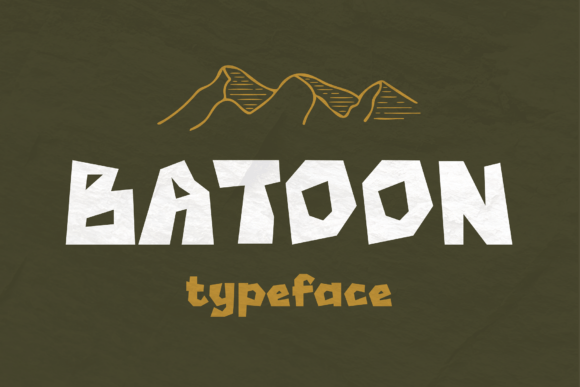
Batoon: A Sharp Sans Serif for Bold Editorial Design
I was recently tasked with redesigning the header for a lifestyle blog that focuses on outdoor adventures and rugged travel narratives. The existing layout felt too soft, lacking the visual punch needed to convey the craggy reality of mountain trails. As I scrolled through my library of Fonts, searching for a typeface that could bridge the gap between modern cleanliness and raw texture, Batoon immediately caught my eye. This handmade, sharp Sans Serif captures the rugged beauty of the Rocky Mountains, offering a distinct personality that standard geometric fonts simply cannot match. Its jagged edges and bold lines evoke the craggy peaks and rocky trails of the mountain range, making it an ideal candidate for projects that need to feel grounded yet contemporary.
Using Batoon for Magazine Covers and Digital Headers
When selecting Fonts for a digital magazine cover or a high-impact blog header, the primary goal is to stop the scroll while maintaining readability. Batoon excels in this arena because its unique character acts as a visual hook without sacrificing the legibility expected of a Sans Serif. In my test layout for the adventure blog, I used Batoon for the main issue title, pairing it with large, high-resolution photography of slate-grey cliffs. The font's inherent roughness complemented the texture of the stone in the image, creating a cohesive editorial mood that felt intentional and curated. Unlike sterile corporate fonts, Batoon brings a sense of place and atmosphere to the design, instantly communicating that the content within is about exploration and resilience.
For web designers and publishers, this makes Batoon a powerful tool for establishing brand identity. Whether you are building a newsletter graphic or a landing page for a coaching workbook, the font's bold presence ensures that your headlines command attention. It works particularly well when you need to convey strength and authenticity, avoiding the overly polished look that can sometimes alienate readers seeking genuine connection.
Pairing Batoon with Readable Body Text for Long-Form Content
One of the most critical aspects of editorial design is understanding where a display font ends and body copy begins. While Batoon is stunning for titles, its jagged nature means it is not suitable for dense paragraphs or small captions. To create a balanced reading experience, I paired Batoon with a classic, highly readable serif font for the article body. This combination leverages the best of both worlds: the expressive, handmade quality of the Sans Serif headline draws the reader in, while the traditional serif ensures comfort during long-form reading on screens or in PDF exports. This technique is essential for ebook creators and newsletter writers who want their publications to feel premium without exhausting the reader's eyes.
If a serif feels too traditional for your specific project, another effective strategy is to pair Batoon with a clean, neutral sans serif for subheads and navigation elements. This maintains a modern aesthetic while allowing Batoon to shine as the primary voice of the publication. The key is to let the font breathe; give it plenty of white space around headers and pull quotes to let those rocky, textured edges stand out against the clean background.
Enhancing Brand Identity in Printables and Worksheets
Beyond digital screens, Batoon translates beautifully into print materials, especially for creators selling printable planners, wedding guides, or educational worksheets. The font's handmade origin gives it a human touch that resonates well in the DIY and creator economy sectors. When designing a worksheet for a creative course, using Batoon for section dividers and chapter openers adds a layer of sophistication that elevates the perceived value of the product. It suggests that the content is not just information, but an experience. For wedding guides targeting couples who love the outdoors, Batoon offers a way to incorporate the theme of the Rocky Mountains without relying on cliché imagery, letting the typography itself tell the story of rugged elegance.
Creating Visual Hierarchy with Jagged Typography
The true power of Batoon lies in its ability to establish a clear visual hierarchy through texture rather than just weight. In a complex layout filled with images, sidebars, and call-to-action buttons, having a headline font with such distinct character helps guide the reader's eye naturally. The sharp, irregular lines of this Sans Serif create natural focal points that break up the monotony of a grid. I found that using Batoon for pull quotes added a dynamic rhythm to the page, turning simple text excerpts into graphical elements that encourage engagement. This approach is particularly effective for lifestyle blogs and editorial features where mood and atmosphere are just as important as the written word.
Ultimately, choosing the right Fonts is about matching the tool to the story you want to tell. Batoon is not a universal solution for every design problem; it is a specialized instrument for projects that require grit, character, and a connection to the natural world. By using it strategically for headlines, covers, and branding accents, you can infuse your content with the rugged beauty of the mountains, creating a memorable identity that stands out in a crowded digital landscape.